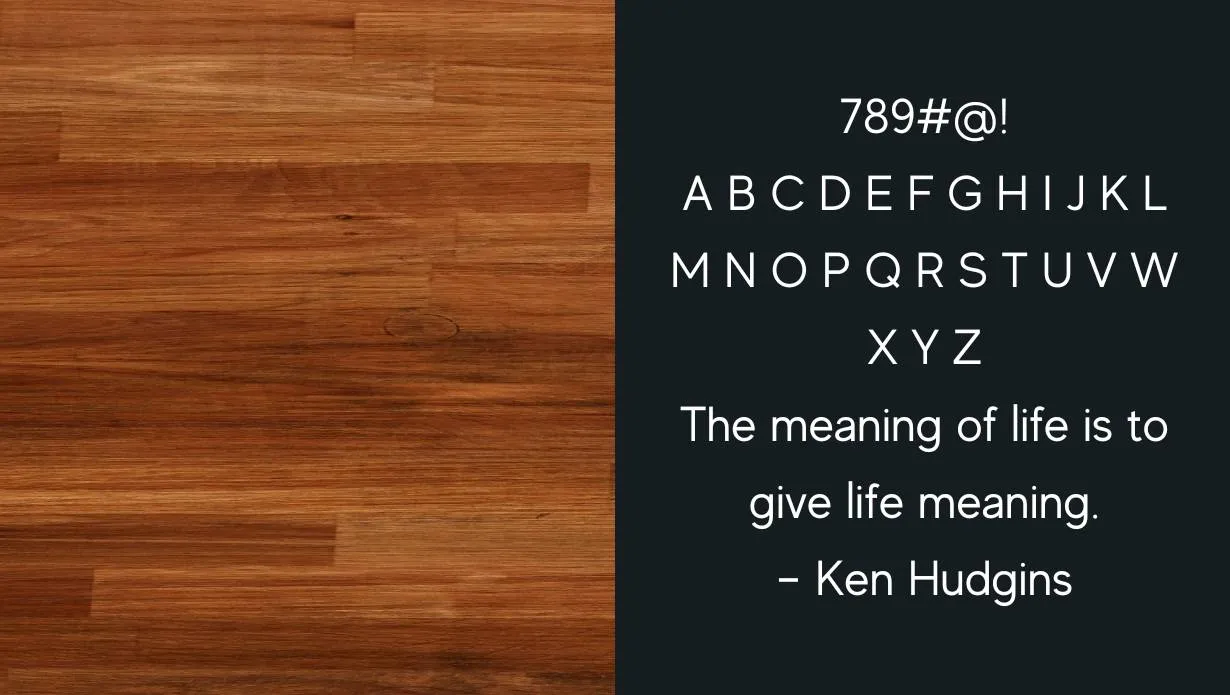
Made Evole Sans Font is a unique sans-serif typeface that comes in many variations and styles. This font was created in 2003. It was designed to be used for writing in small sizes and to be easily read by people with impaired vision.
This font was created by MadeType, who is a Dutch type designer.